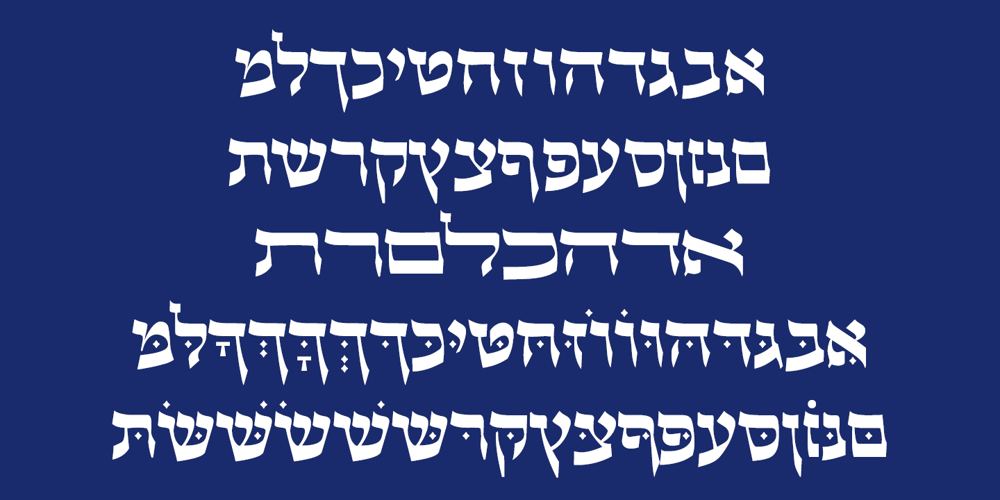
Hebrew Castel
Hebrew Castel font
Hebrew Castel Font Family was designed by Sami Artur Mandelbaum and published by Samtype. Hebrew Castel contains 1 styles and family package options. Beautiful Calligraphic font and also a readable font.